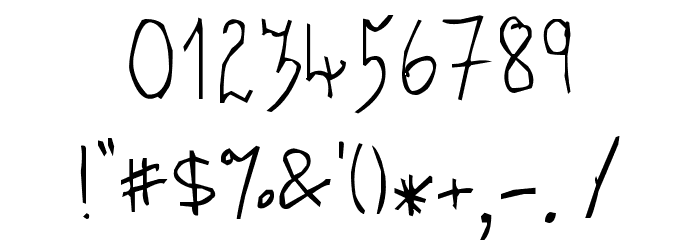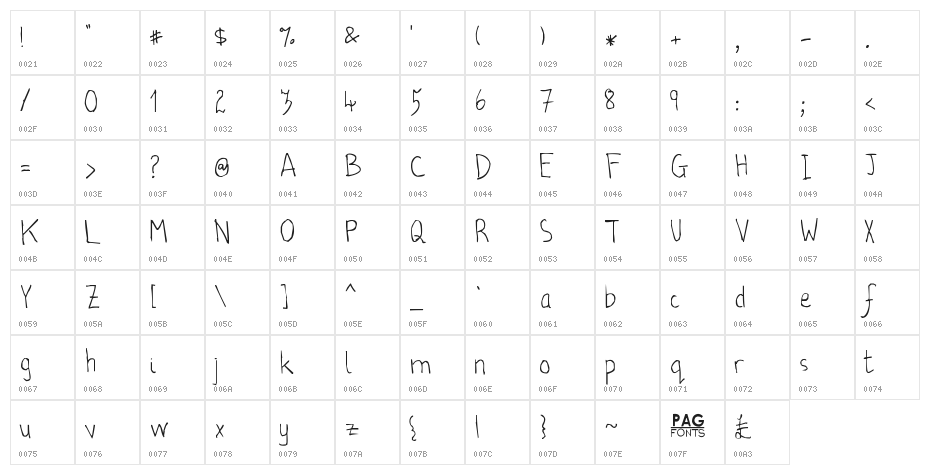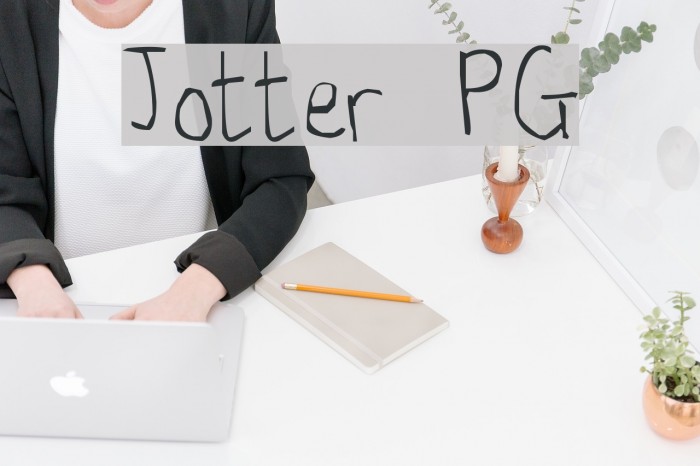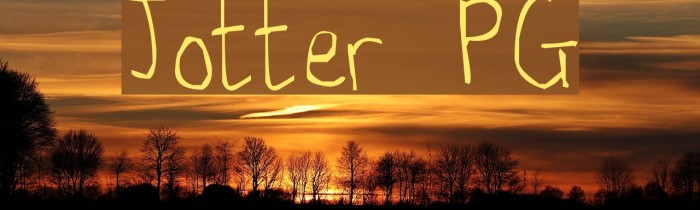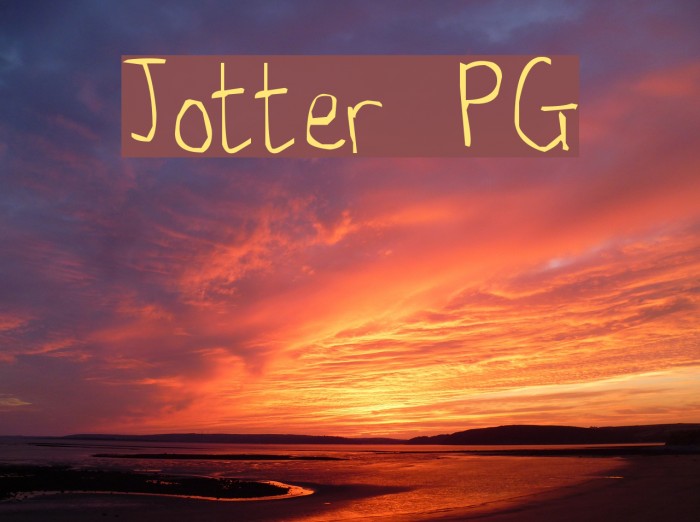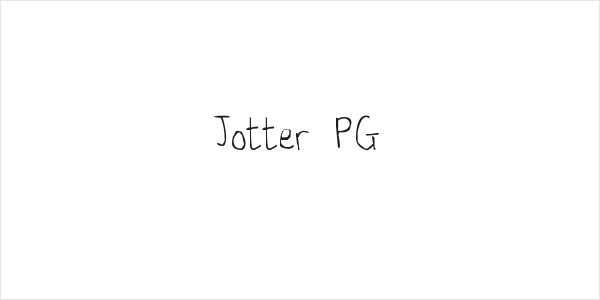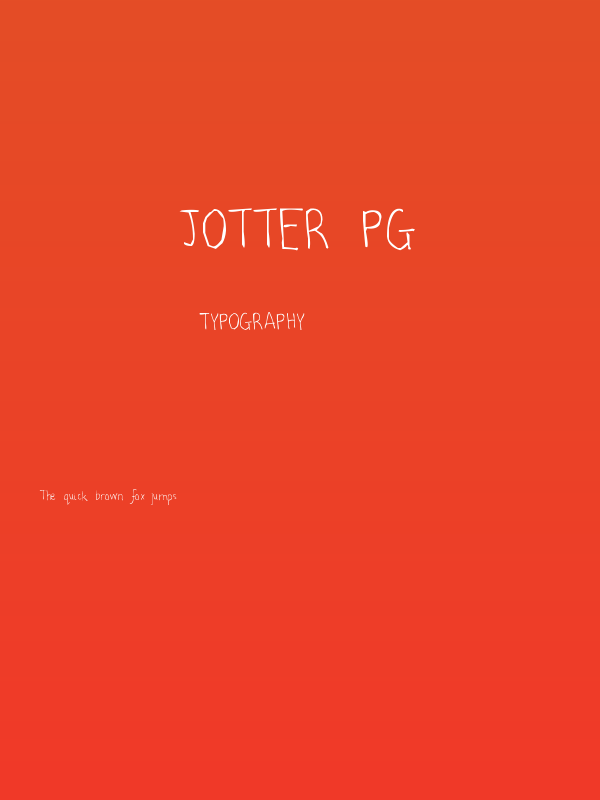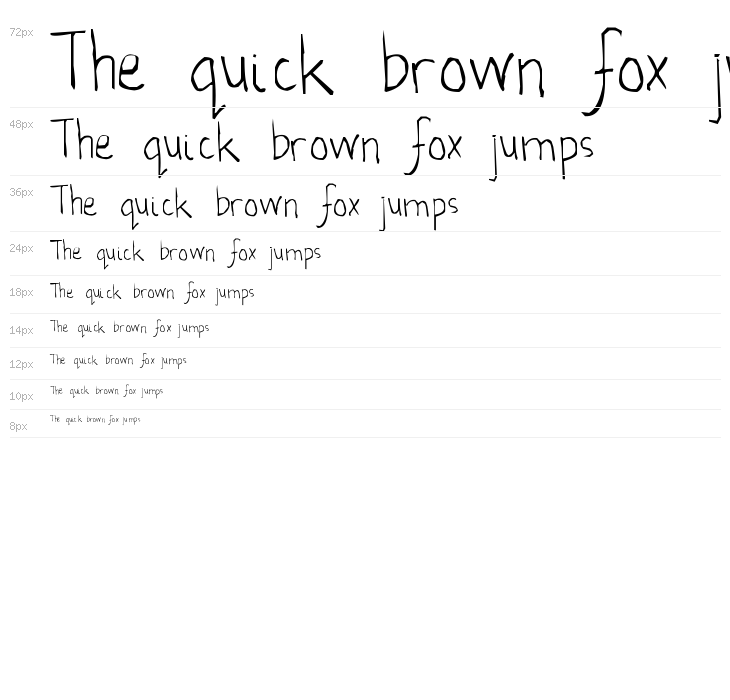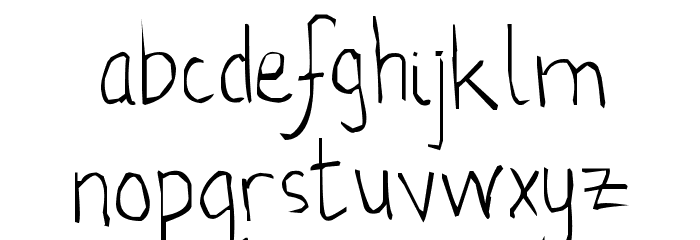
Jotter PG Font
Jotter PG Description
This font features a playful and informal handwritten style, characterized by its uneven strokes and casual appearance. The letters have a natural, organic feel, with slight variations in height and width that mimic the imperfections of hand-drawn text. The uppercase and lowercase letters maintain a consistent style, while the numbers and special characters complement the overall aesthetic. The font's irregularities add a personal touch, making it suitable for projects that require a friendly and approachable look.
| Proposed Projects | Ideal for personal notes, greeting cards, children's books, and casual branding projects. |